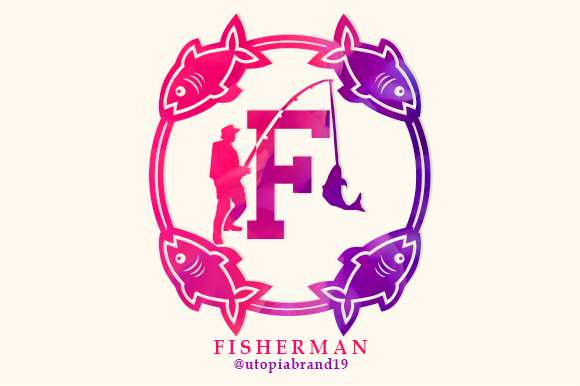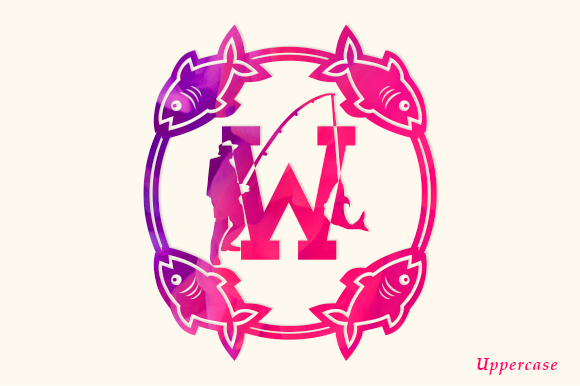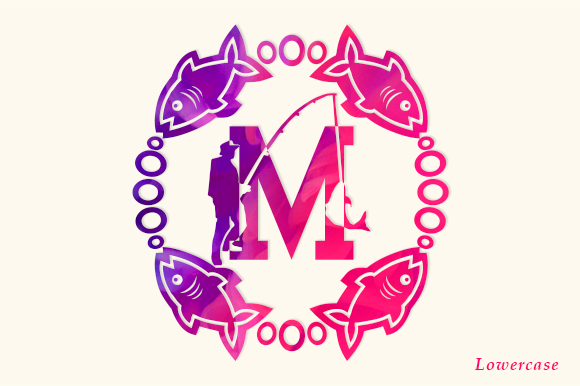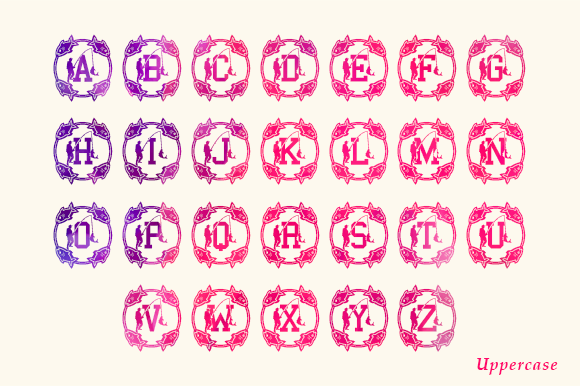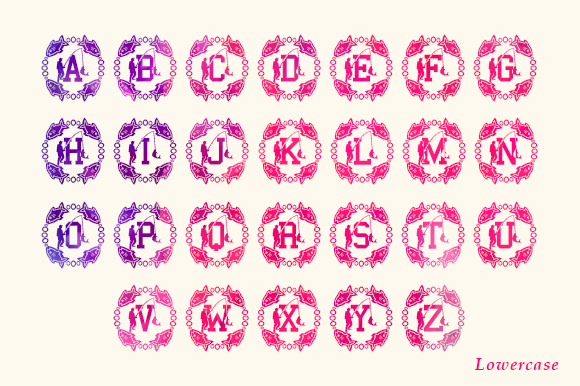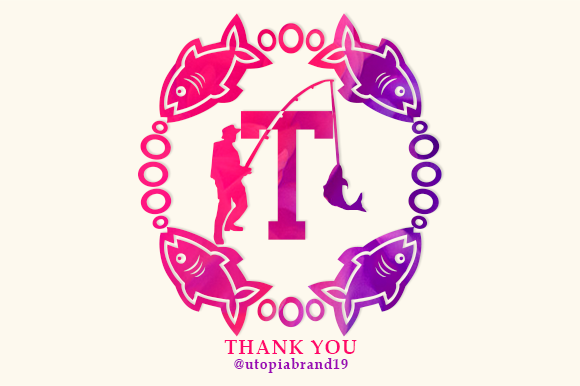
Setting Sail with a Timeless Touch
Have you ever been rummaging through your grandmother’s attic, uncovering a stack of old invitations and greeting cards that instantly transport you back to a bygone era? The intricate details, the classic charm, and the warmth that radiates from those vintage treasures can be truly captivating. It’s moments like these that remind us of the beauty of traditional design and the importance of preserving its essence.
That’s exactly what the Fisherman Monogram Font embodies – a charming decorative font that seamlessly blends nostalgia with modern appeal. This enchanting typeface is designed to add an authentic touch to your creative projects, from elegant invitations and beautiful stationery to captivating social media posts and adorable greeting cards.
For designers, the Fisherman Monogram Font is a valuable treasure trove of inspiration, offering a unique blend of classic charm and modern flair that’s sure to elevate any project. Whether you’re a seasoned pro or a budding designer, this font is sure to become a trusted companion in your creative journey.
Fisherman Monogram Font Key Features
- Unique Characteristic: The font features a distressed, hand-drawn style with a monogram design, adding a touch of elegance and sophistication to any design.
Designer Review: Fisherman Monogram Font
I recently had the chance to work with the Fisherman Monogram Font, and I have to say, it’s a mixed bag. Here’s my honest take.
- The font is beautifully distressed, giving it a unique and charming look that’s perfect for rustic or nautical-themed designs.
- The monogram aspect of the font is well-executed, making it easy to create custom, personalized designs.
- The font is highly customizable, with a wide range of options for color, size, and layout.
- The font is limited in its usage – it’s not suitable for body text or long paragraphs, as it can be difficult to read.
- The customization options, while numerous, can be overwhelming for users who are new to font design.
Overall, I think the Fisherman Monogram Font is a great choice for designers who are looking to add a touch of personality to their designs. However, it may not be the best choice for every project. With a little creativity and restraint, this font can be a real showstopper.
Tips for Getting the Most Out of Fisherman Monogram Font
Use Fisherman Monogram Font to add a touch of nostalgia and whimsy to your designs.
Pair it with distressed textures and watercolor elements for a unique look.
Use it to create custom invitations, logos, or branding materials.
Fisherman Monogram Font is perfect for:
Branding and logos for fishing-related businesses
Custom apparel and accessories
Alternatives to Fisherman Monogram Font
Lobster Font is a casual, cursive script font ideal for creating a relaxed and friendly atmosphere. It’s perfect for use in food blogs, social media, and advertising. Lobster Font has a similar feel to Fisherman Monogram Font, but it’s more casual and less ornate.
Pacifico Font is a beautiful, elegant script font inspired by the Pacific coast. It’s ideal for use in luxury branding, packaging, and advertising. Pacifico Font has a more refined and sophisticated feel compared to Fisherman Monogram Font, making it suitable for high-end projects.